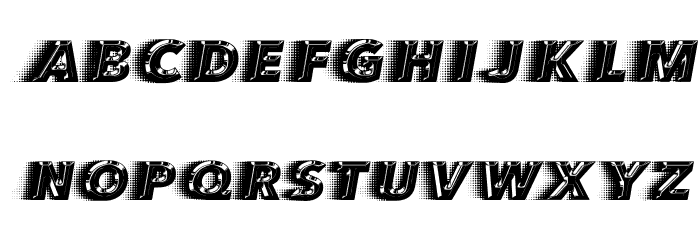
QUICKSILVER SPACED Font
This font features a bold and dynamic style with a distinct halftone pattern that gives it a retro, comic book-like appearance. The letters are uppercase and have a three-dimensional effect, achieved through shading and the use of diagonal lines. The font's design is eye-catching and energetic, making it suitable for projects that require a strong visual impact. The characters are evenly spaced, ensuring readability while maintaining the font's unique aesthetic. Its boldness and distinct style make it ideal for use in headlines, posters, and other creative projects where a vintage or playful look is desired.
A bold, retro font with a halftone pattern and three-dimensional effect.
- Font: QUICKSILVER SPACED
- Proposed Projects: Ideal for comic book covers, retro-themed posters, and eye-catching headlines.
- Overall Style: Vintage
- Use Case: Headlines, Posters, Logos